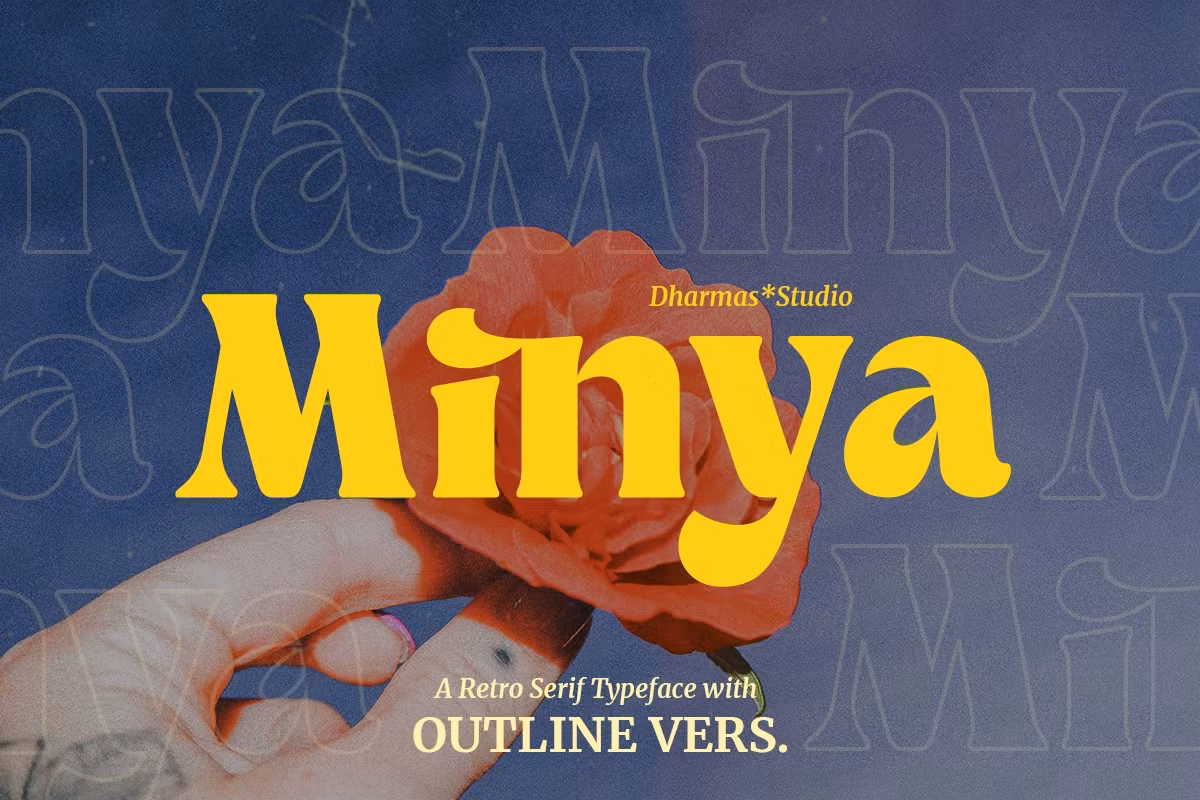
Minya - Retro Font Free Download is a fun and nostalgic typeface inspired by vintage design trends, offering a bold and energetic look with a classic retro feel. Its rounded shapes and playful curves make it perfect for projects that aim to evoke the charm and vibrancy of past decades, such as logos, posters, packaging, social media graphics, and more.
The Minya font captures the spirit of the retro era, bringing an energetic and upbeat vibe to your designs. Whether you're working on branding for a throwback-inspired business, a fun event, or creative promotional materials, Minya adds a touch of playful nostalgia.
Add a bold, retro touch to your designs with Minya!